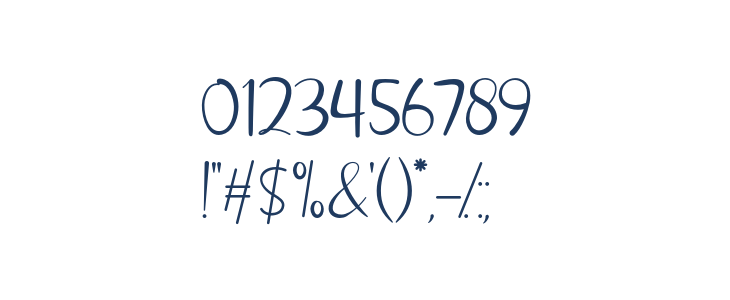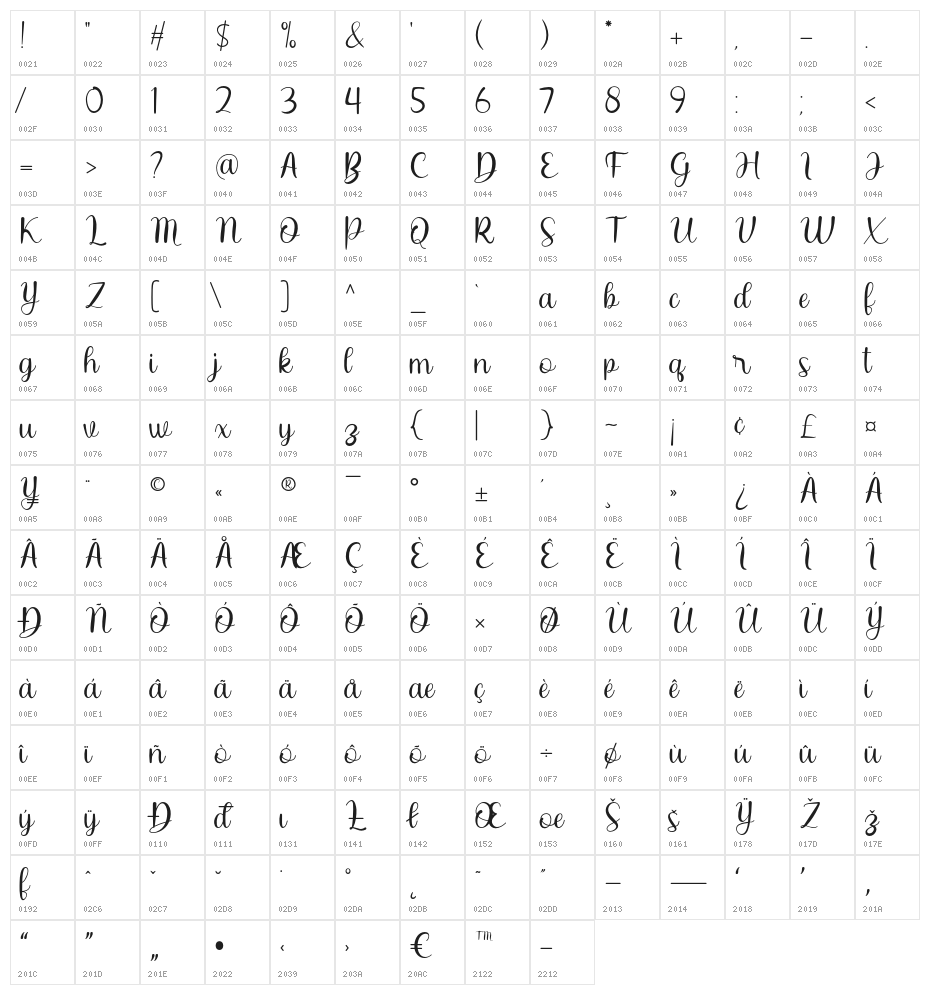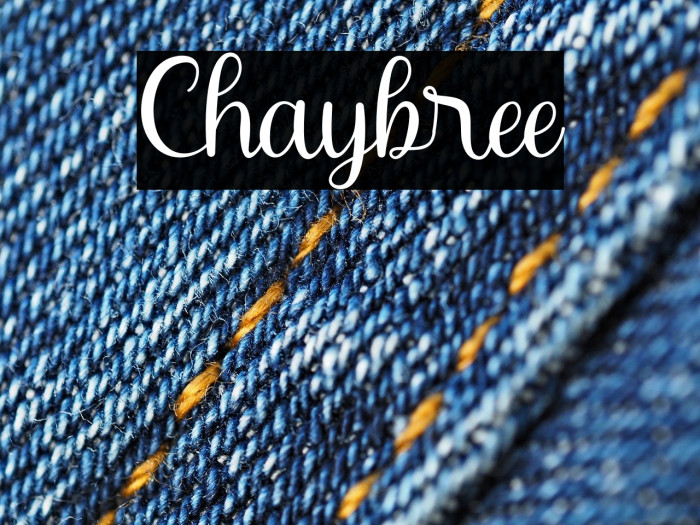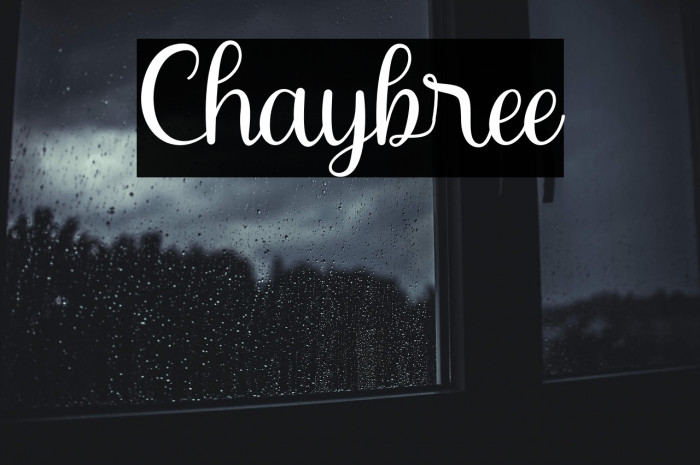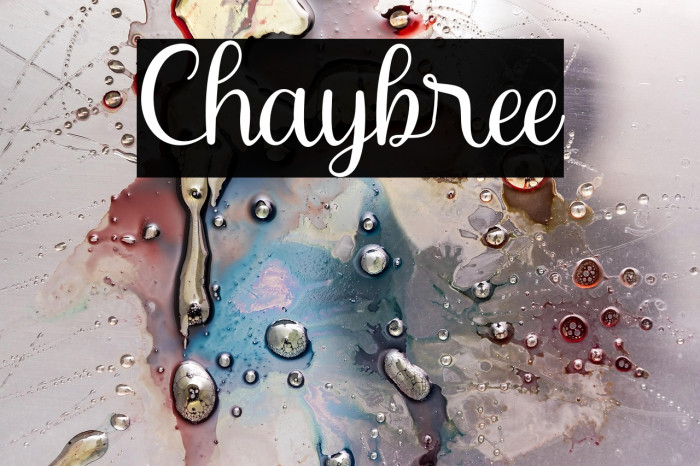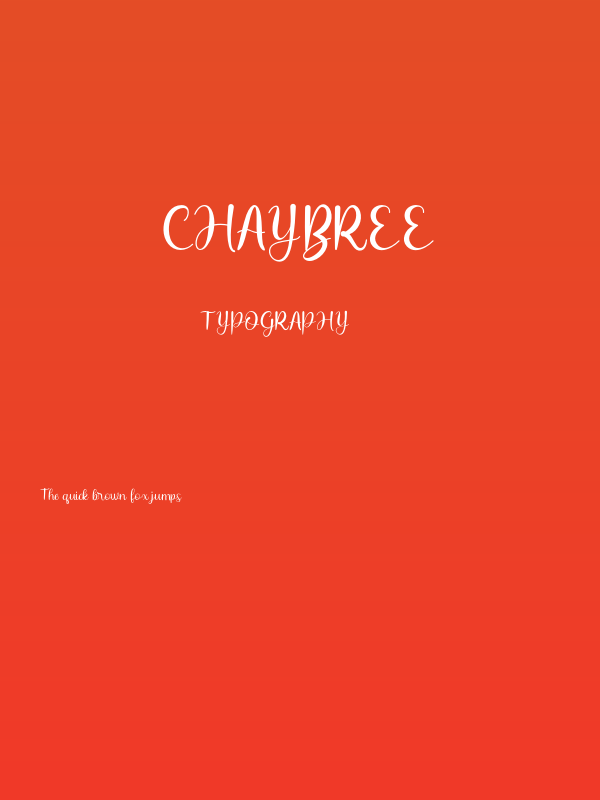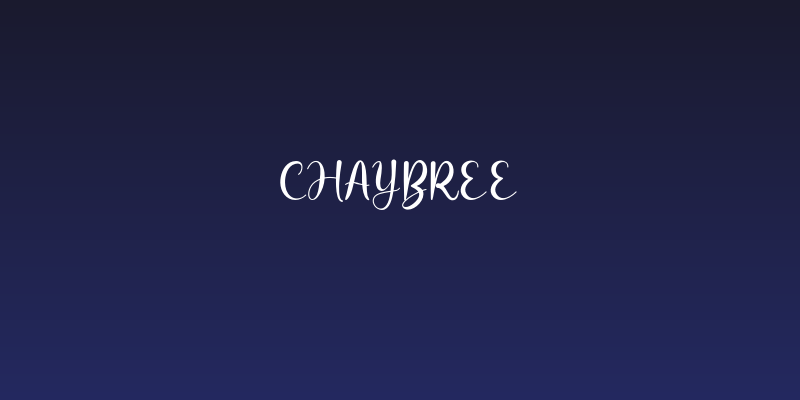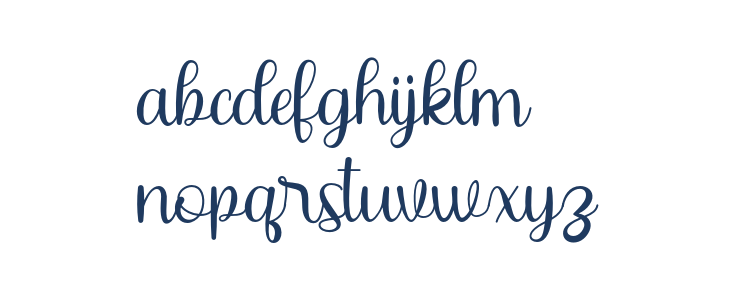
Chaybree Font
Chaybree Description
This font features a playful and elegant script style with a handwritten appearance. The characters are fluid and connected, showcasing a natural flow that mimics cursive handwriting. The uppercase letters are slightly more elaborate, with some decorative loops and swirls, while the lowercase letters maintain a consistent and smooth baseline. The numbers and special characters are designed to match the overall aesthetic, providing a cohesive look. The font's strokes vary in thickness, adding a dynamic and lively feel to the text.
| Use Case | Logos, Invitations, Social media graphics |
| Proposed Projects | Ideal for wedding invitations, greeting cards, branding projects, and social media graphics. |